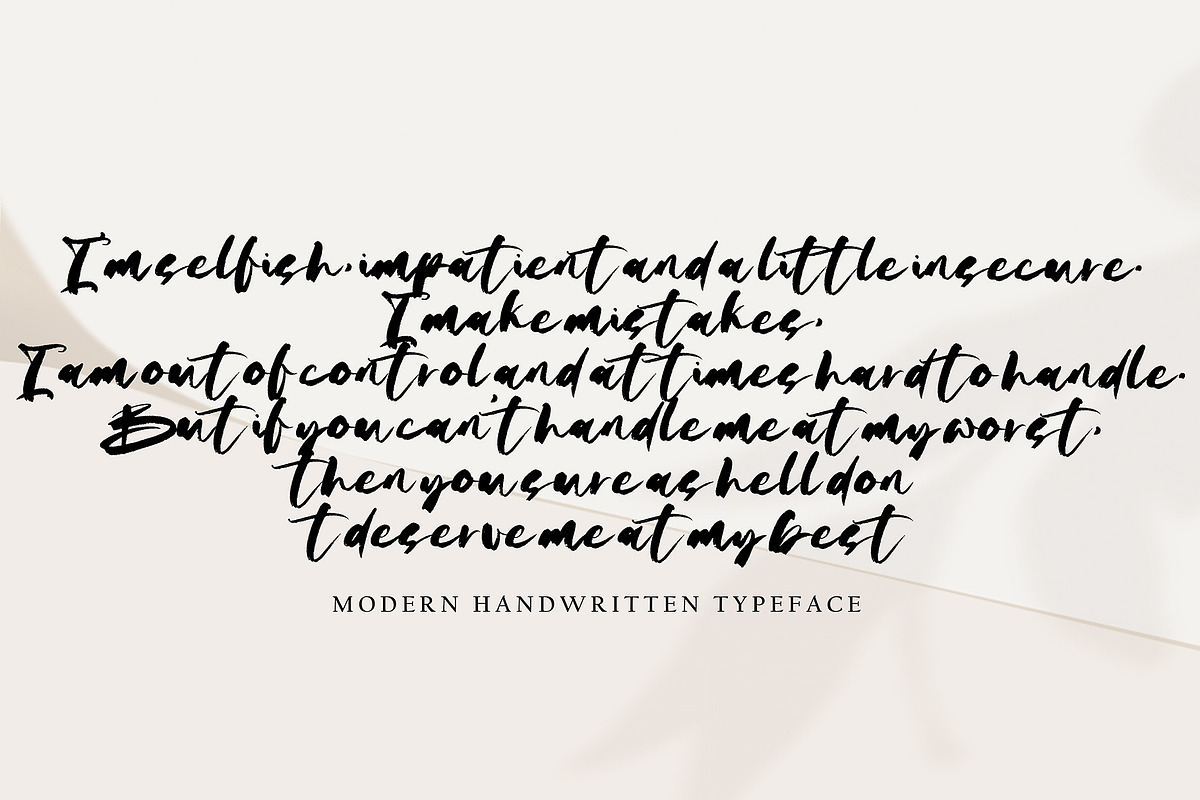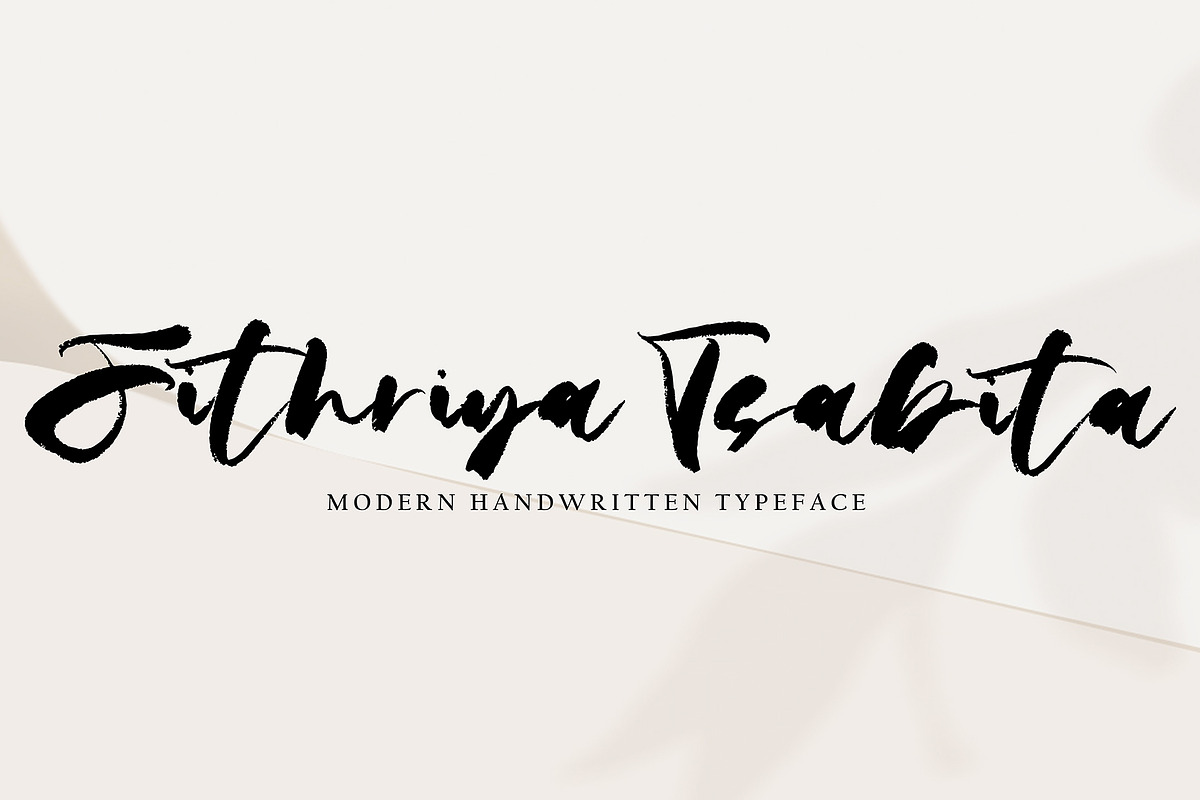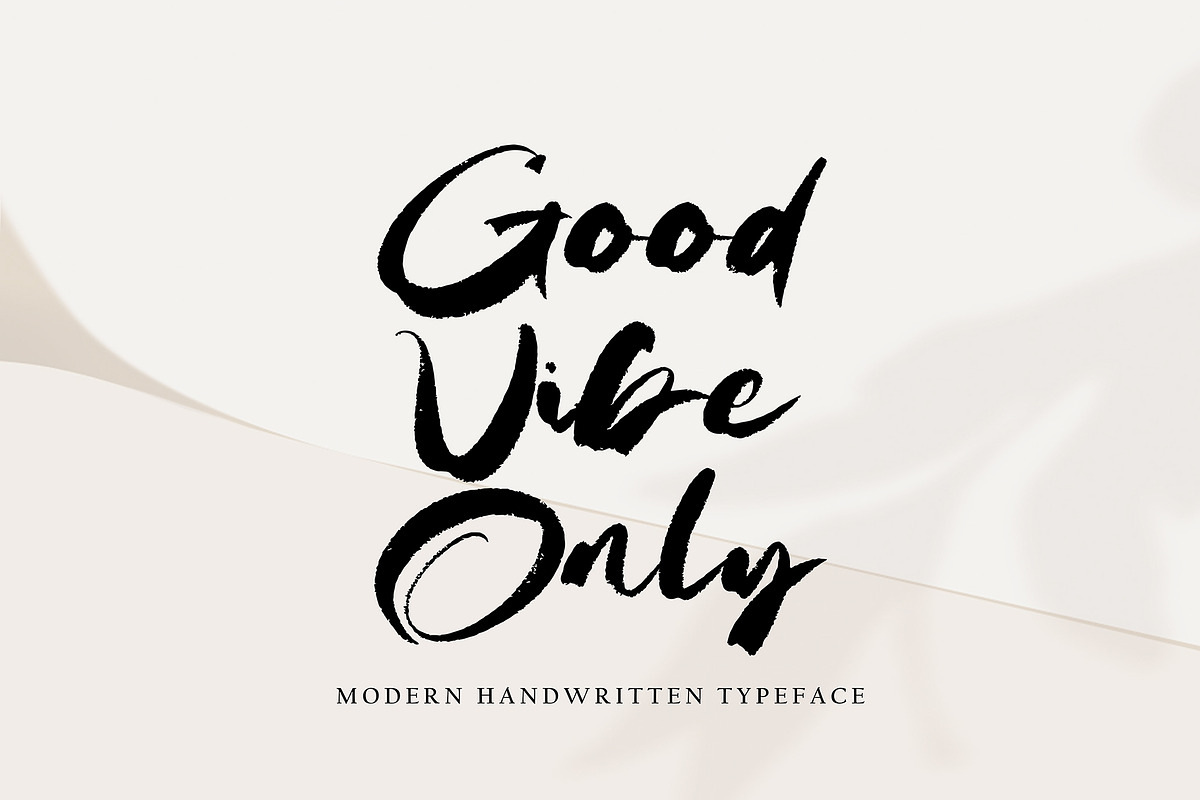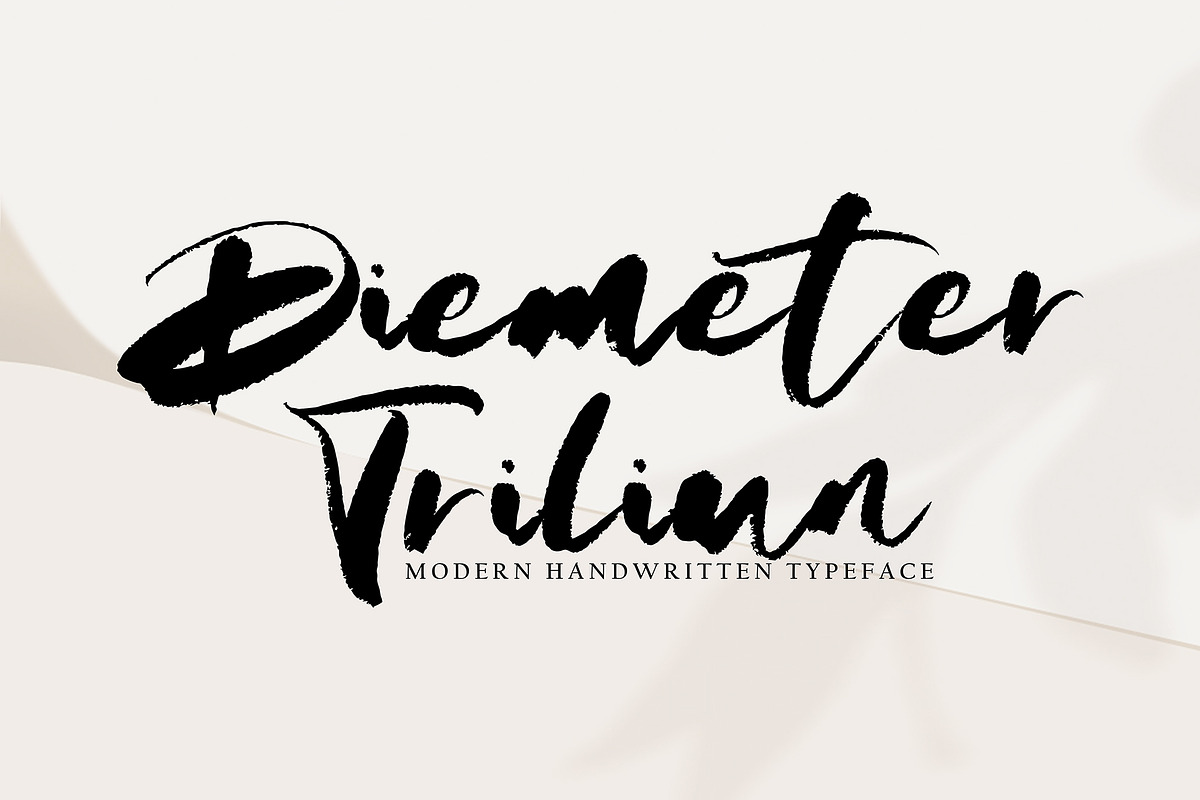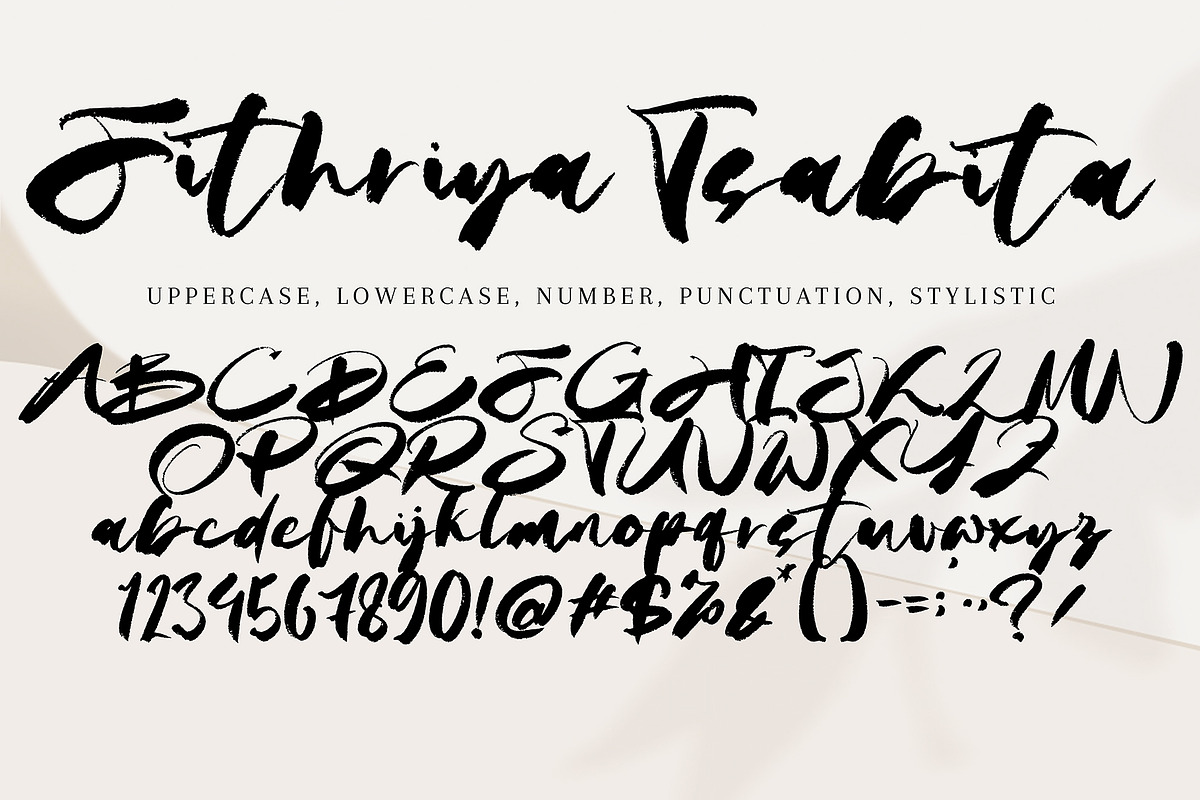
Fithriya Tsabita
Fithriya Tsabita with new style, this font will perfect for many different project ex: quotes, logo, blog header, poster, banding, letter, invitation, stationery, etc...